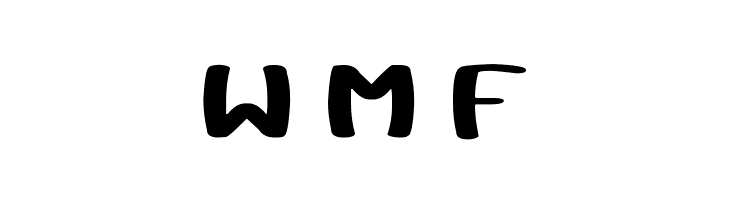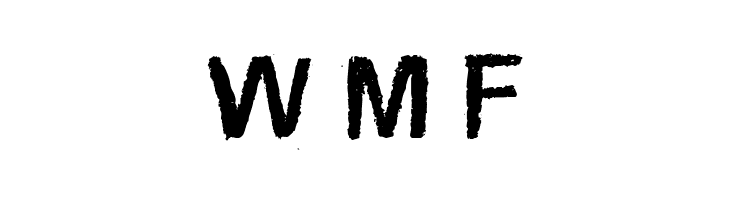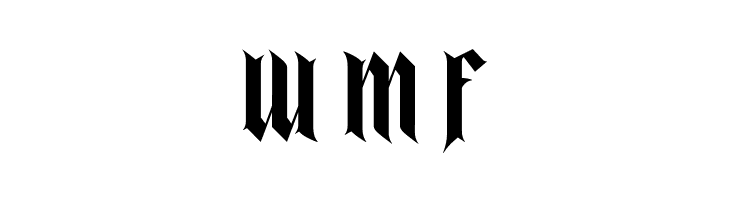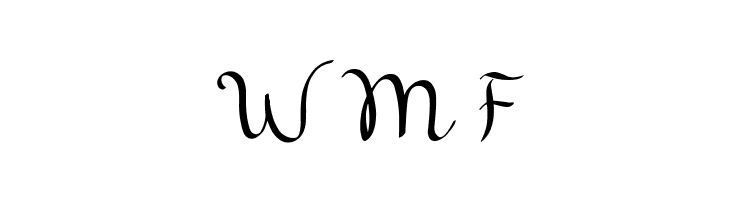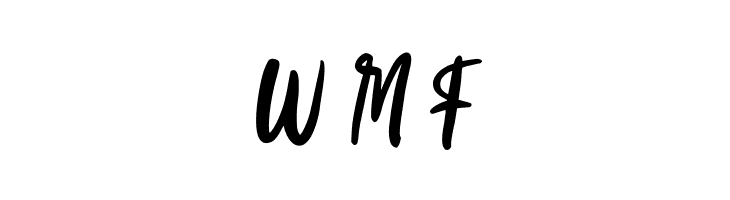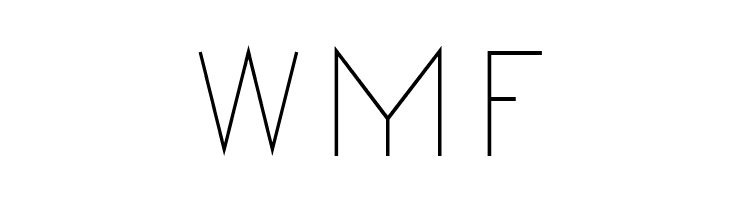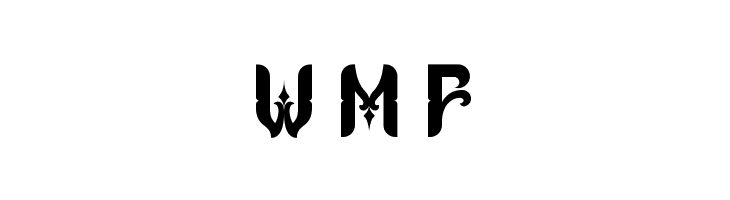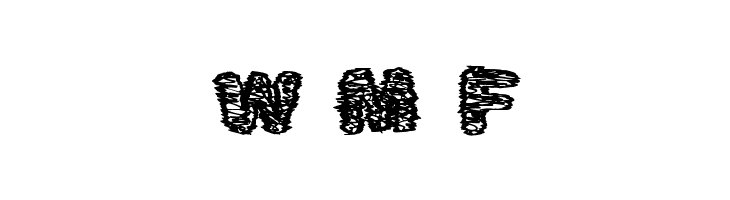
A modern, elegant script font with flowing, cursive letterforms.
A casual, handwritten font with a light and fluid style.
A bold, blackletter font with sharp, angular lines and a gothic aesthetic.
A graceful and artistic script font with flowing, cursive characters.
A modern, minimalist font with geometric lines and a sleek appearance.
A charming and playful script font with fluid, connected letterforms.
An elegant, flowing script font with smooth, cursive letterforms.
A playful and elegant script font with a handwritten style.
A playful, bold font with a whimsical, cartoonish style and rounded edges.
A bold, textured font with a chaotic, hand-drawn appearance.
A modern, geometric font with clean lines and a structured appearance.
A bold, expressive handwritten font with dynamic brush-like strokes.
A bold, dynamic brush script font with expressive strokes and artistic flair.
A playful, rounded font with geometric and organic shapes, offering a friendly and modern look.
A playful, rounded font with whimsical elements and consistent stroke width.
A lively, handwritten script font with fluid, connected letters.
A bold, dynamic script font with a calligraphic style.
A fluid and elegant handwritten font with smooth curves and flowing lines.
An elegant, flowing script font with graceful curves and sophisticated style.
A bold, expressive script font with flowing, cursive design.
An elegant, flowing script font with a natural handwriting style.
An elegant and flowing script font with interconnected letterforms.
A modern, clean sans-serif font with a slightly condensed style.
A playful and elegant script font with a modern twist, featuring distinctive loops and smooth curves.
A bold, three-dimensional font with a distinct outline and shadow effect.
A modern, handwritten font with elegant, flowing cursive characters.
A modern, geometric sans-serif font with a sleek and condensed style.
A bold, decorative font with intricate details and high contrast.
A playful, bold font with rounded edges and a hand-drawn feel.
A dynamic, italicized font with smooth, rounded strokes and a lively character.
A lively handwritten font with dynamic strokes and a playful style.